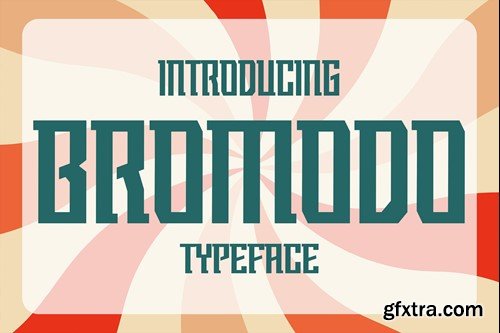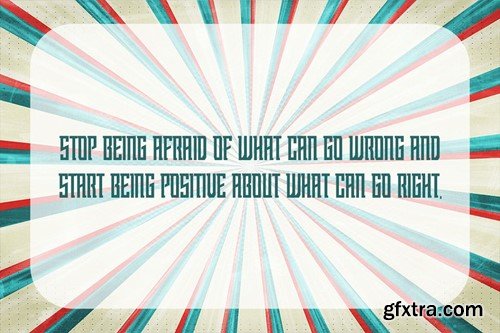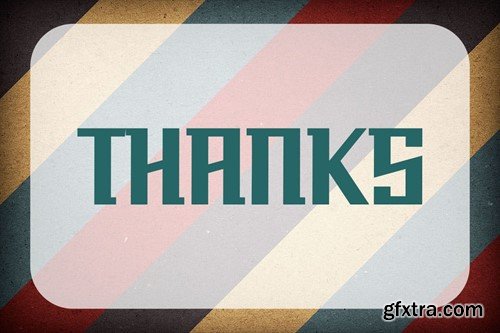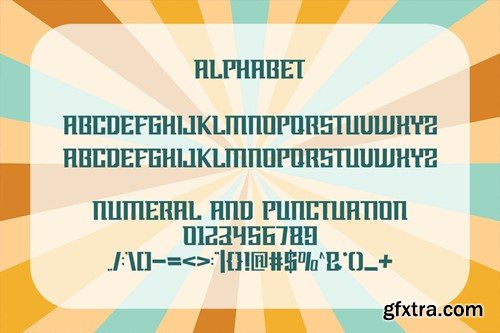
Bromodo font
Proudly present our new product Bromodo font is a modern and authentic font. Perfect for both professional and branding needs of a product. This font is suitable for any branding project like quotes, logo, blog header, poster, banding, letter, invitation, stationery, etc... Designed as a versatile and flexible that can be used on a range of projects and mediums. outstanding in a wide range of contexts. Include Files Thank you Display and cover image Not include